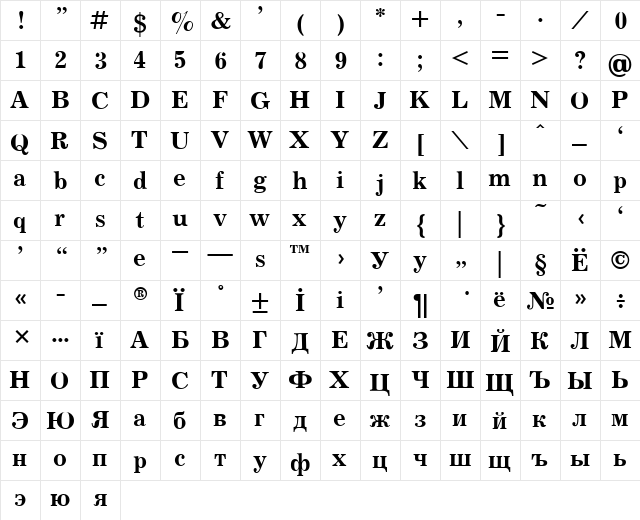
Journal Bold
Design Context for Journal Typeface
Journal takes a measured approach to typography — its balanced proportions and neutral character make it a reliable workhorse for both digital and print work. Its bold stroke weight gives it real presence on the page.